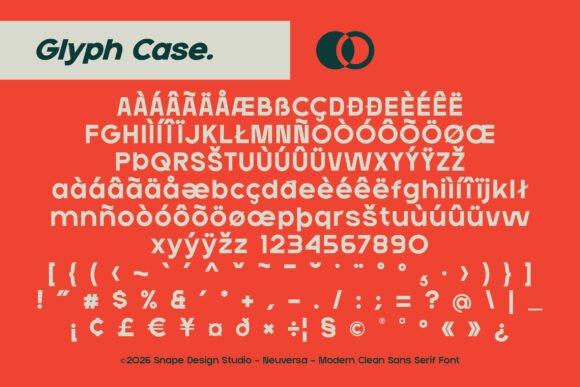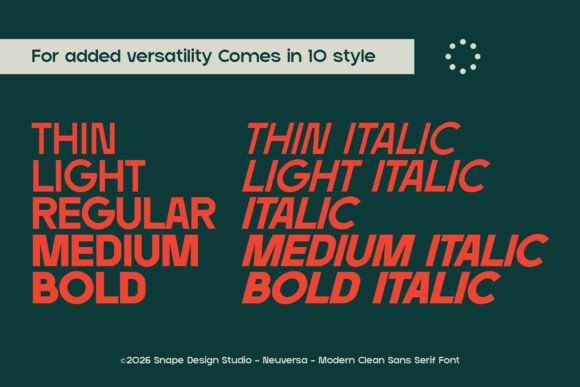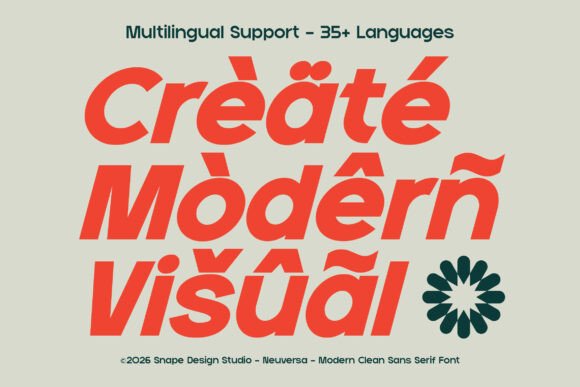
Introduction to Neuversa Font
Have you ever stared at a blank page, eager to bring a creative project to life, only to be halted by the perfect font eluding you? The thrill of designing a new brand or UI/UX project can be exhilarating, but it’s often the smallest details that make all the difference.
Enter Neuversa Font, a game-changing sans serif that’s poised to revolutionize your design workflow. With its sleek, minimalist-industrial aesthetic and five distinct weights, Neuversa Font is the ultimate design resource for creatives seeking high-quality typography. Whether you’re working on a tech startup identity, corporate UI/UX design, or high-visibility signage, Neuversa Font’s versatility is unmatched. And the best part? It’s available for free download, allowing you to focus on what matters most – bringing your creative vision to life with transparency and precision.
Key Features of Neuversa Font
- High-quality, elegant design perfect for creative projects and design resources.
- Unique, modern style that sets your creative project apart from the crowd, making it a valuable design resource.
Honest Review: Neuversa Font
I recently stumbled upon the Neuversa Font while searching for a high-quality design resource for a creative project. The first thing that caught my attention was its unique, modern design. The Neuversa Font is perfect for anyone looking to add a touch of sophistication to their work.
Here are some of the things that work well with the Neuversa Font:
- ✨ High-quality design: The Neuversa Font has a crisp, clean design that makes it perfect for both digital and print projects.
However, there are a few limitations to the Neuversa Font:
- ⚠️ Limited language support: The Neuversa Font only supports a limited range of languages, which may be a concern for designers working on projects with multiple language requirements.
Overall, I’m impressed with the Neuversa Font. Its unique design and high-quality font make it a great addition to any designer’s toolkit. While it may have some limitations, it’s a great resource for designers looking for a modern, free font.
Tips for Getting the Most Out of Neuversa Font
Experiment with different font sizes, colors, and styles to achieve a unique look. Use the Neuversa Font in combination with other design elements, such as images or graphics, to create visually appealing designs.
The Neuversa Font is suitable for various creative projects, including:
- Presentation slides and reports
- Business documents and proposals